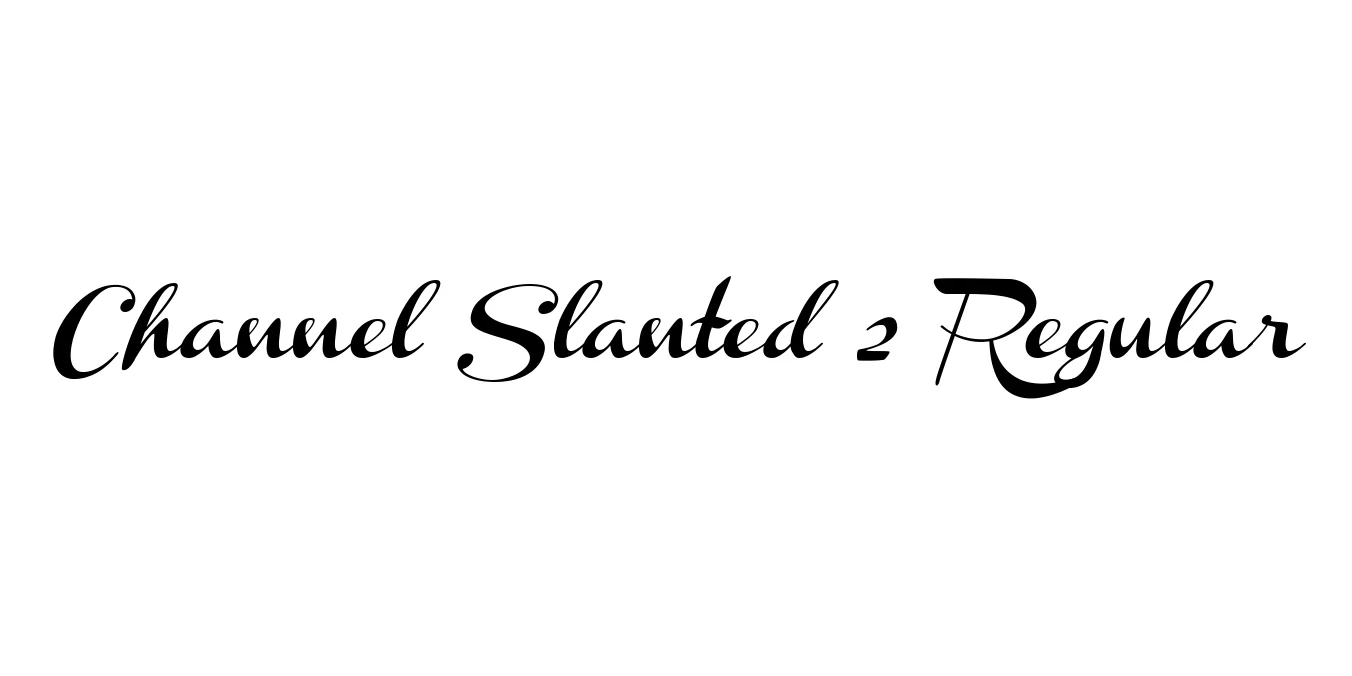
Channel Slanted 2 Regular
Designed by Måns Grebäck
Channel Slanted 2 Regular is a sophisticated and dynamic script typeface created by the acclaimed Swedish designer Måns Grebäck. It represents a refined evolution in the Channel font family, showcasing elegant, brush-like strokes with a pronounced forward lean that suggests motion and modernity. The typeface bridges the gap between classic calligraphy and contemporary commercial design, offering a high-contrast aesthetic that is both legible and visually striking.
This font features a comprehensive set of glyphs, including stylized ligatures and a full range of numerals and punctuation. The Slanted version specifically targets projects that require a sense of speed, energy, or premium quality. Its smooth connections and rhythmic flow make it a standout choice for designers looking to replicate the look of high-end hand-lettering in a digital format, ensuring a professional finish for various creative endeavors.
Channel Slanted 2 Regular Best Uses
Perfect for luxury brands and high-end corporate identities seeking a custom-lettered feel.
Ideal for creating eye-catching headers, stylized quotes, and promotional graphics.
Adds a sophisticated and premium touch to cosmetic, beverage, or luxury goods labels.
Well-suited for streetwear and athletic clothing lines due to its sense of motion.
Brings a professional yet personal touch to wedding stationery and event programs.